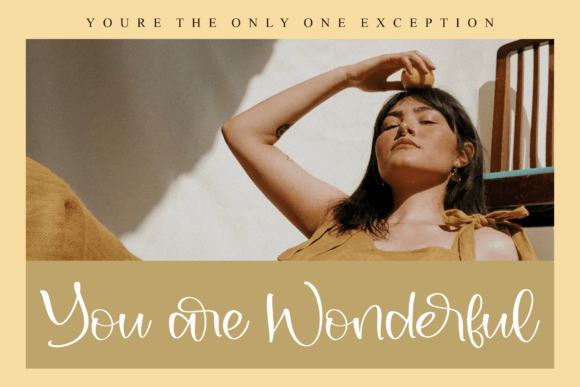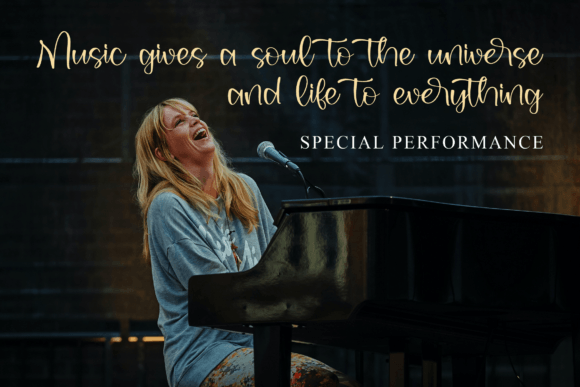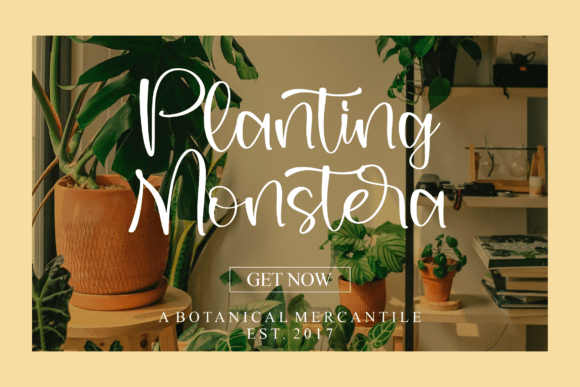
Introduction to Karlissa Font
Have you ever stared at a blank page, waiting for inspiration to strike? For designers, this moment is a familiar friend – a spark of creativity that can turn a project into something truly special. As you search for the perfect design resource, you might find yourself drawn to the elegant curves and flowing lines of a handwritten font. Enter Karlissa Font, a beautiful script typeface that’s sure to elevate your creative projects.
Whether you’re crafting a logo, branding project, or product packaging, Karlissa Font is the perfect companion. Its high-quality design and versatility make it an invaluable resource for designers seeking to add a touch of sophistication to their work. With its transparent background, Karlissa Font is easy to use and can be downloaded for free, making it a valuable addition to any design toolkit.
Key Features of Karlissa Font
- High-quality design resource ideal for creative projects, with a unique and elegant style.
- Perfect for use in various design contexts, including logos, branding, and typography-based designs.
- Unique characteristics include intricate details and subtle flair, making it stand out from other fonts.
Honest Review: Karlissa Font
I recently stumbled upon the Karlissa Font and I’m excited to share my thoughts on this design resource. With its high-quality design and transparent background, this font is perfect for any creative project that requires a touch of elegance.
- ✨ The font’s sleek and modern design makes it a great addition to any project.
- ✨ The transparent background allows for easy customization and integration with other design elements.
However, I did notice a few limitations:
- ⚠️ The font only comes in a limited number of styles, which may not be suitable for projects that require a wide range of options.
- ⚠️ Some users may find the font’s modern design to be too minimalist for certain projects.
Overall, I’m impressed with the Karlissa Font’s design quality and versatility. While it may have some limitations, it’s a great resource for designers looking for a high-quality font with a transparent background. With a bit of creativity, this font can add a touch of elegance to any project.
Common Use Cases for Karlissa Font
Karlissa Font is perfect for a variety of creative projects, including business cards, brochures, and presentations. Its high-quality design and transparent background make it an excellent choice for graphic designers and digital artists. You can also use Karlissa Font in social media graphics, website headers, and other digital design elements.